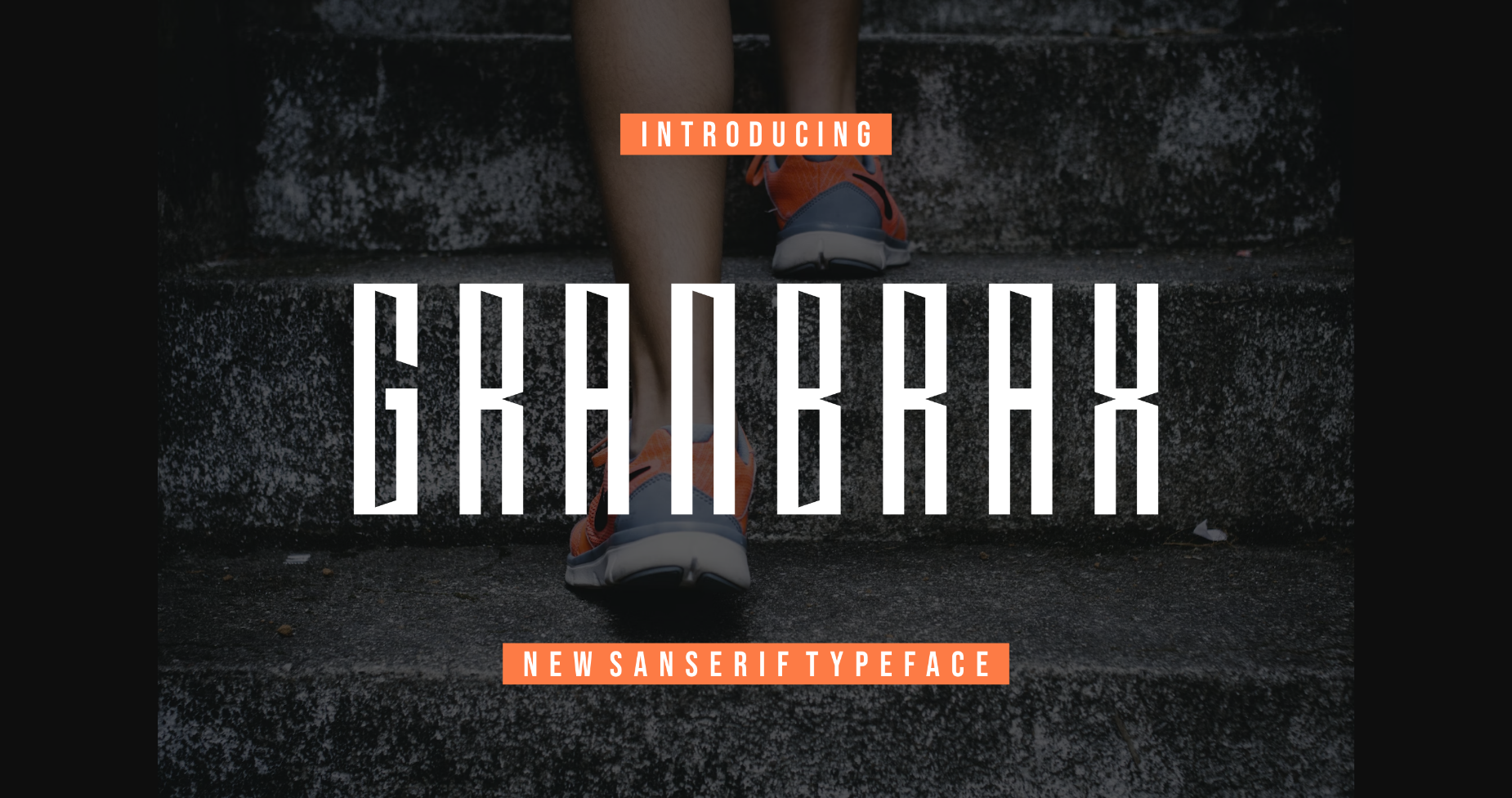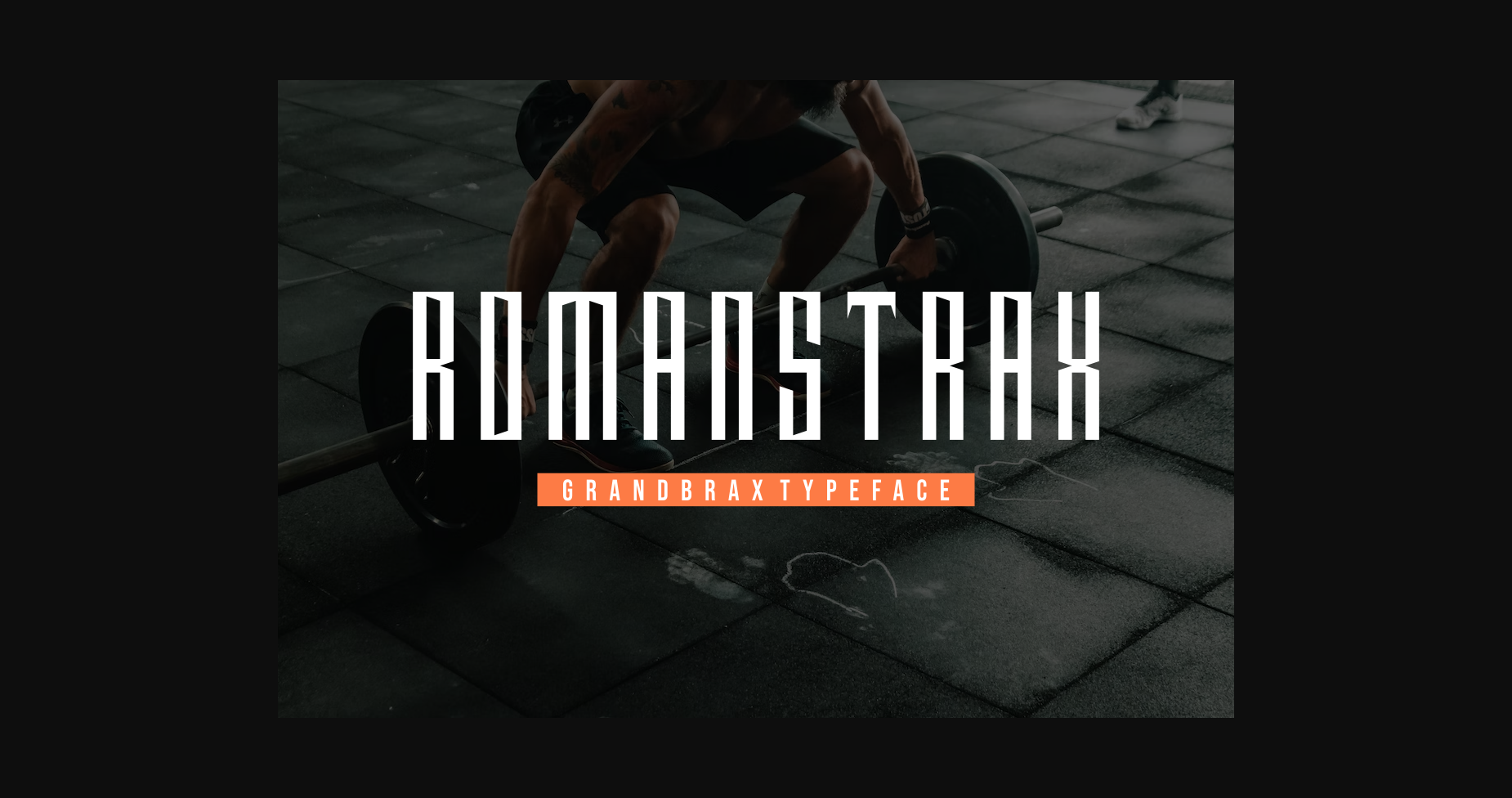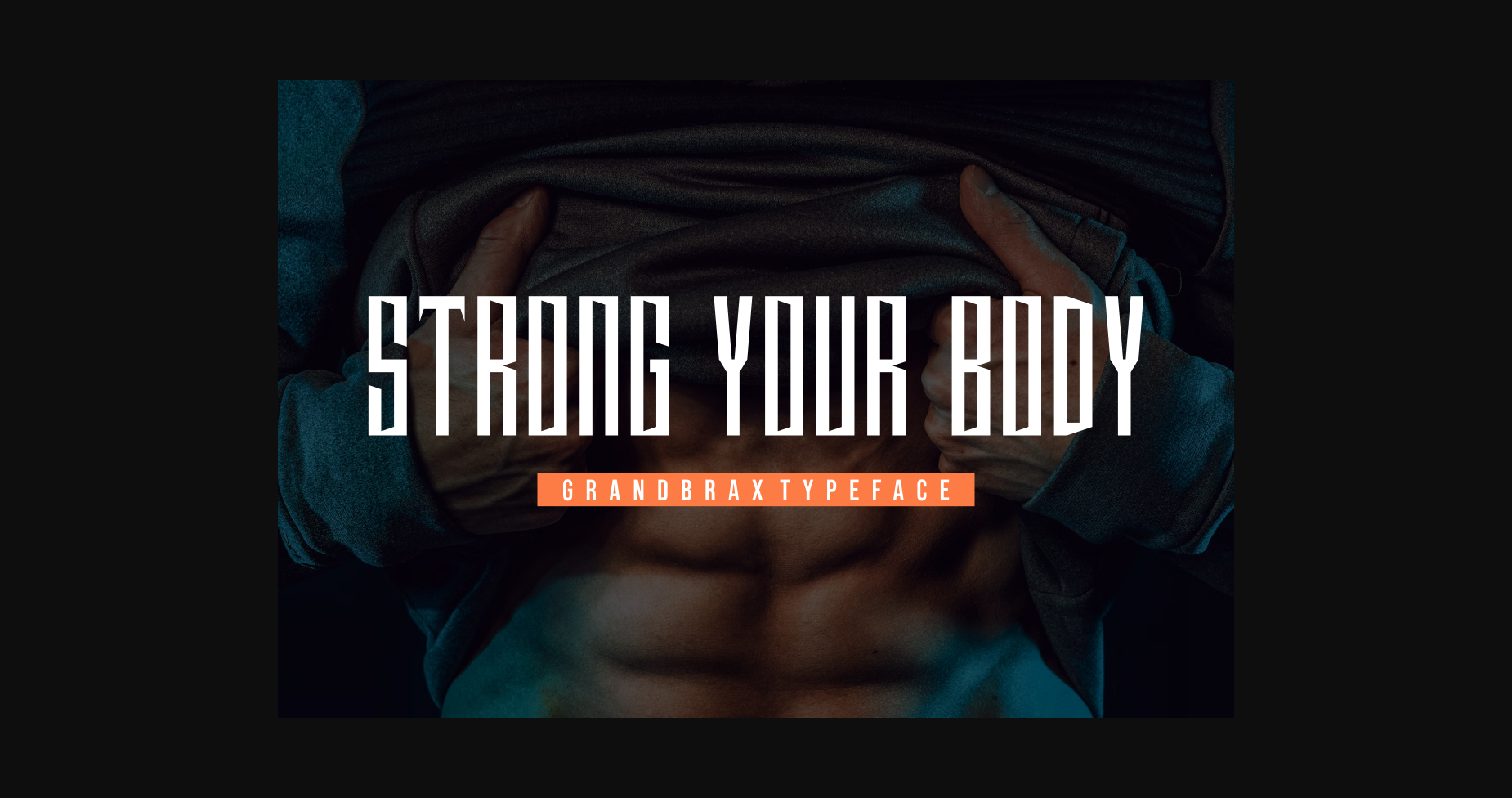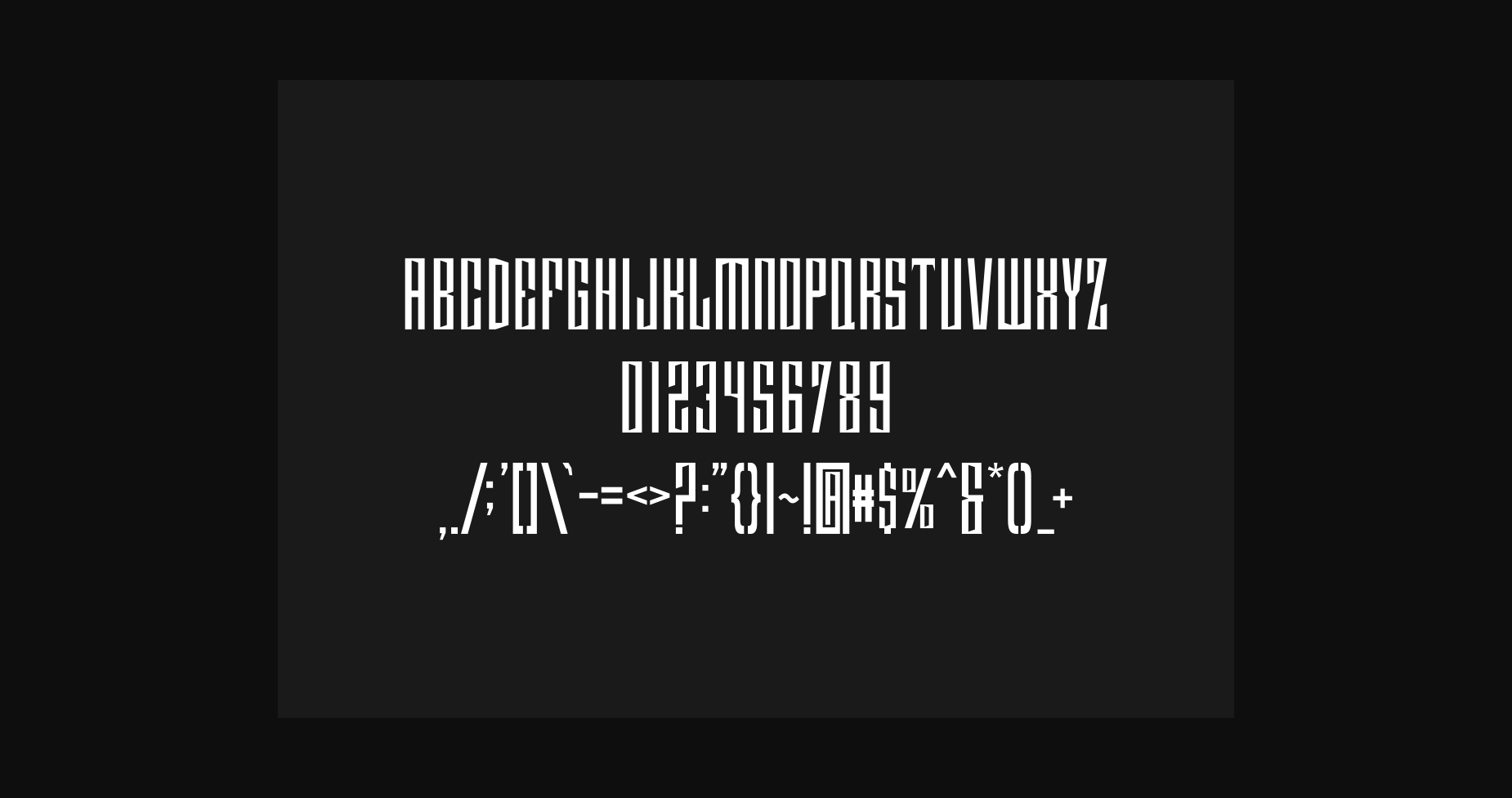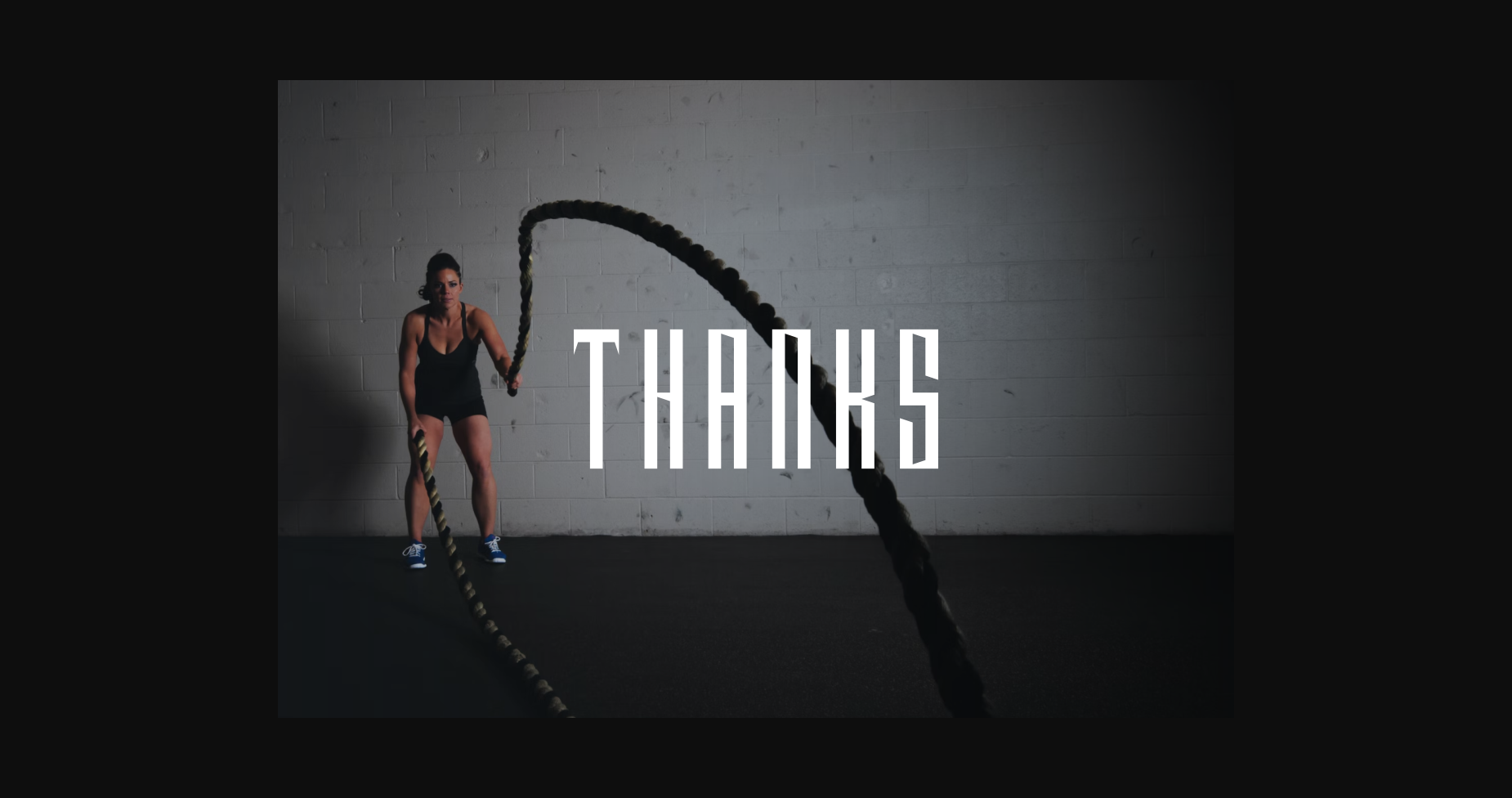
About Granbrax Font
Granbrax Font is a modern Sans Serif typeface. This lovely font is suitable for any branding project like logo, t-shirt printing, esports, and many more. Outstanding in a wide range of contexts.